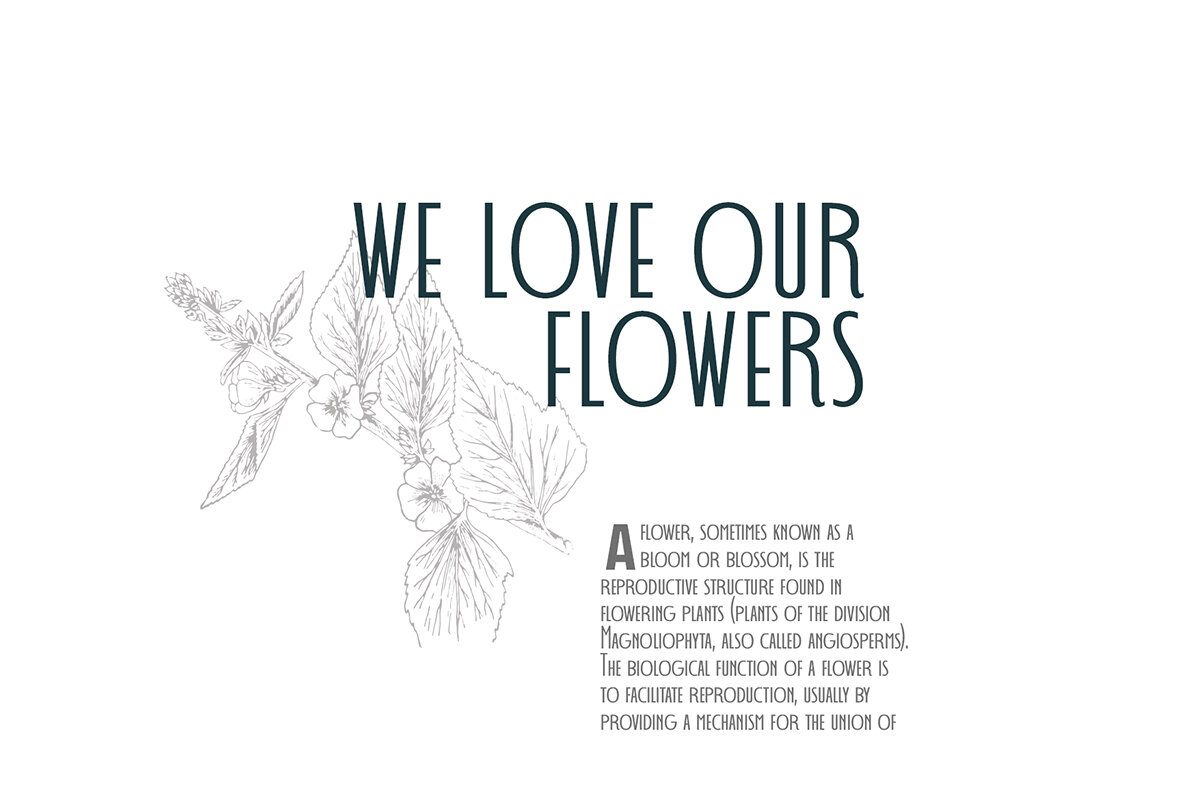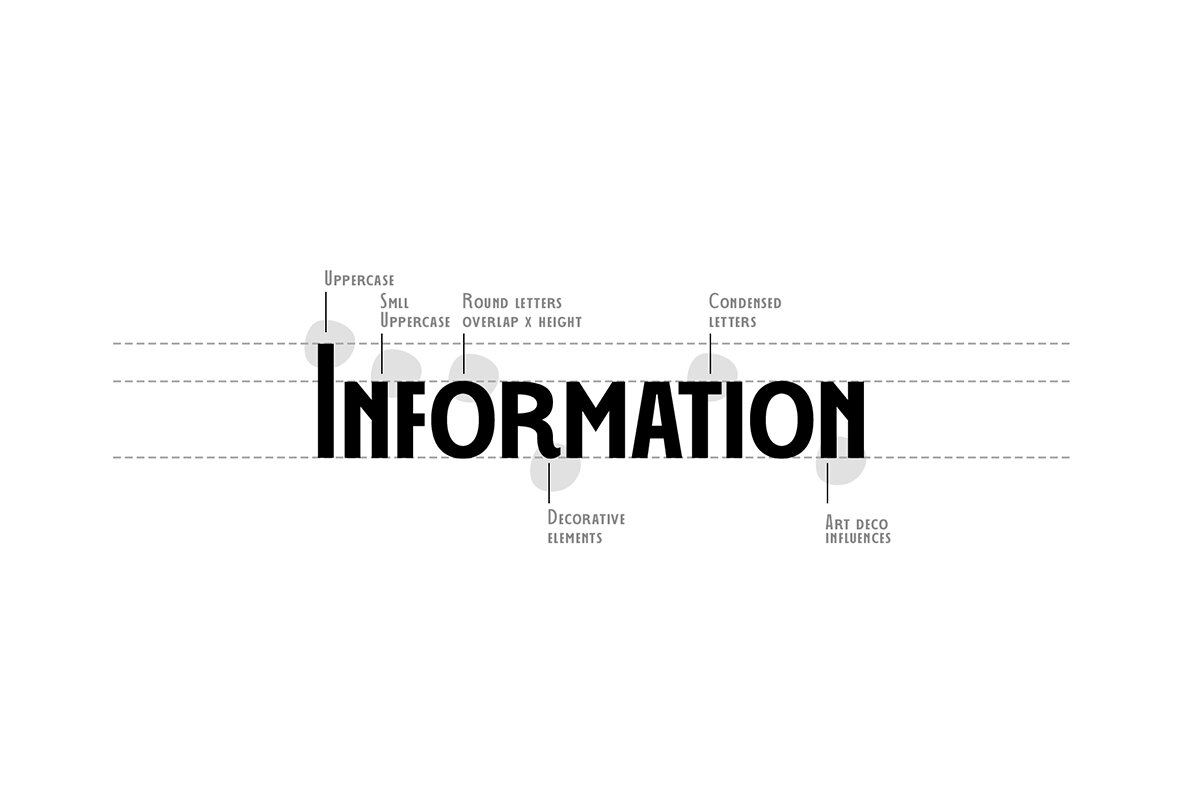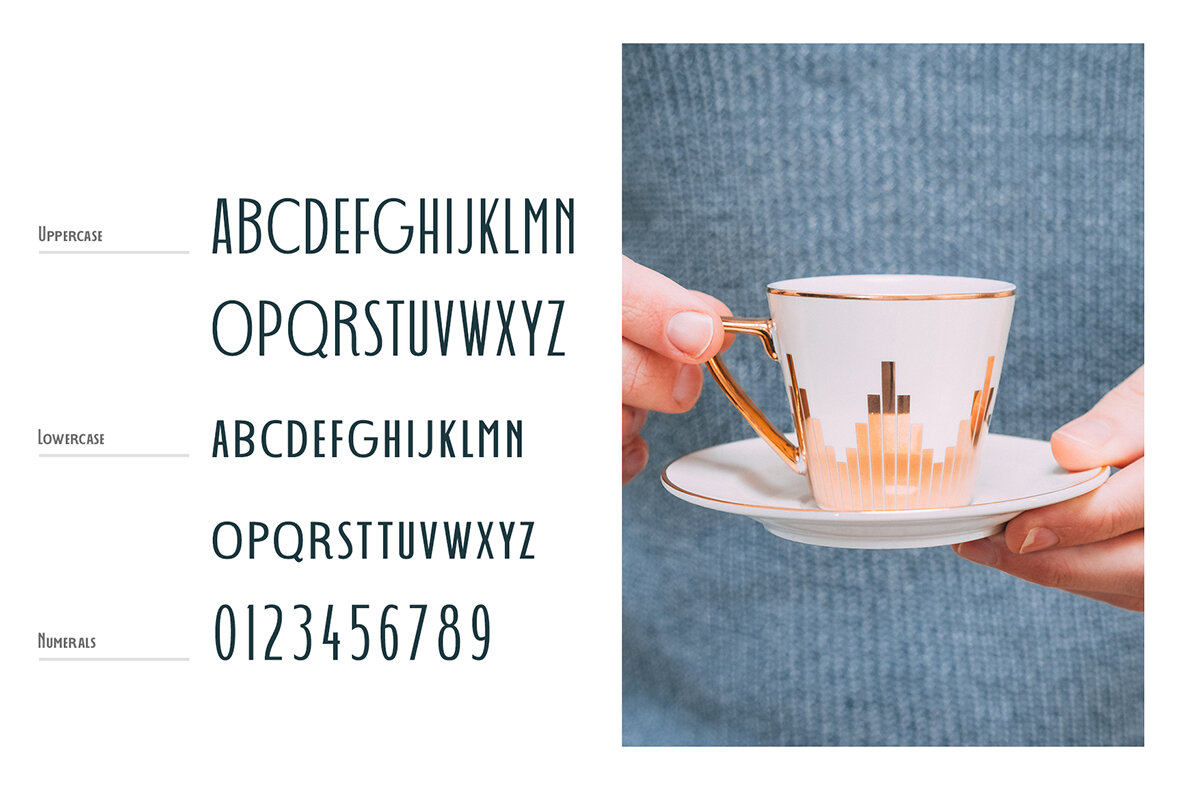
Decohead Typeface Font
DECOHEAD, an elegant and warm Art Deco inspired font. With it`s unique and delicate touch this font can add a sophisticated twist to any design.
Decohead has a neat appearance that feels modern but at the same time it`s decorative accents it sets itself apart, maintaining a subtle yet exquisite overall look, without being too shabby.
Decohead has uppercase and lower uppercase characters, a number of 246 glyphs and extensive Latin script support. You can use Decohead for almost any design project that requires a glamorous, decorative whisper. From posters, headers, feminine logos to wedding invitations but also it can be used for small articles and occasional texts.